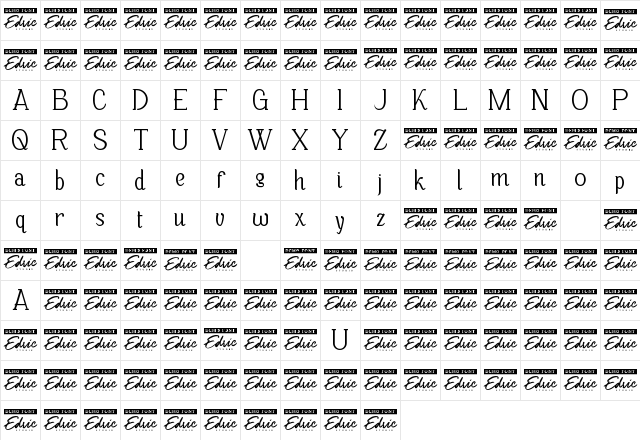
Complete Blue Denim Demo Regular glyph index. Displaying only characters natively supported by Blue Denim Demo Regular font.
Blue Denim Demo is a composed and adaptable typeface that performs quietly and consistently across a wide range of design contexts.